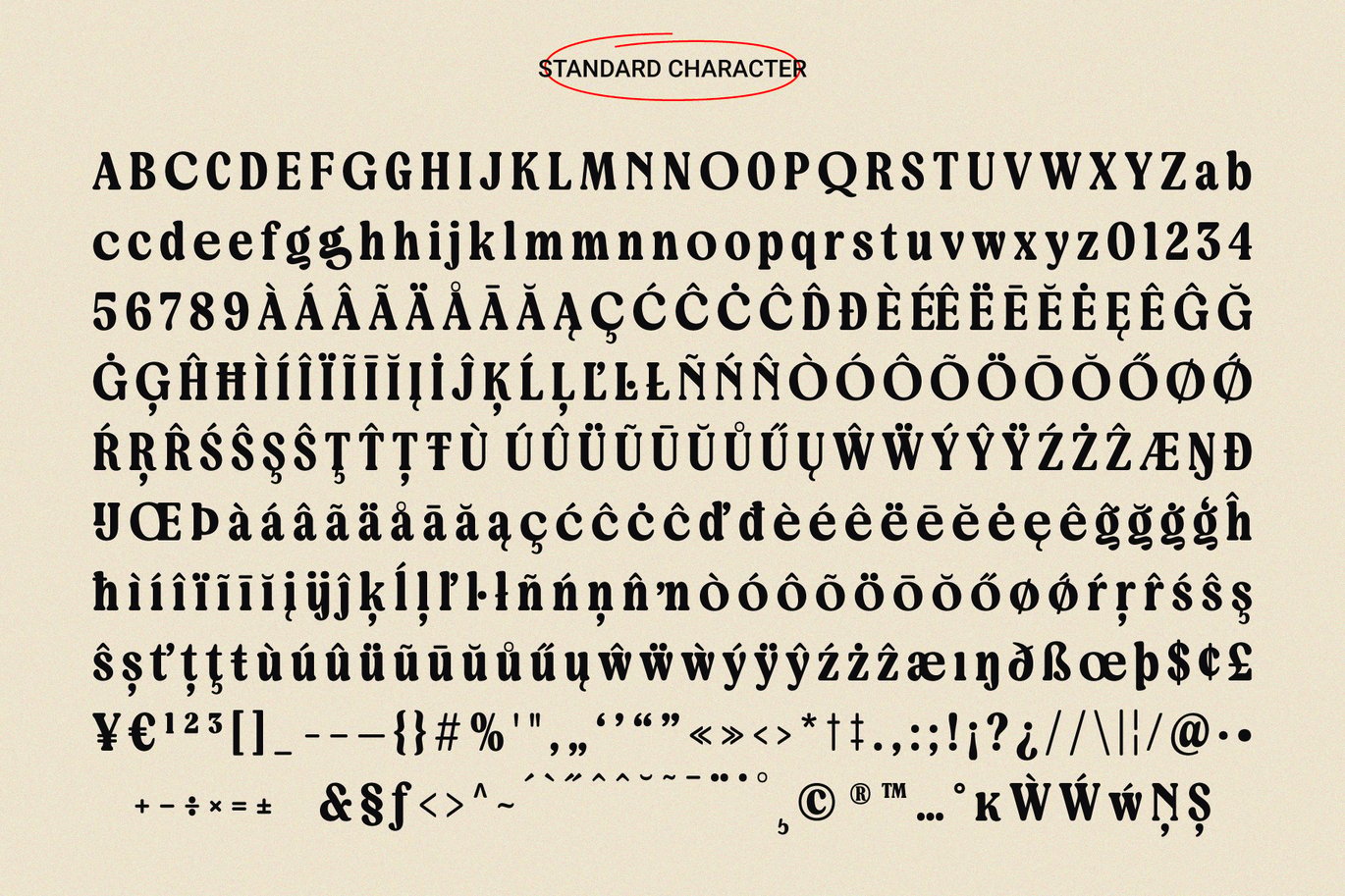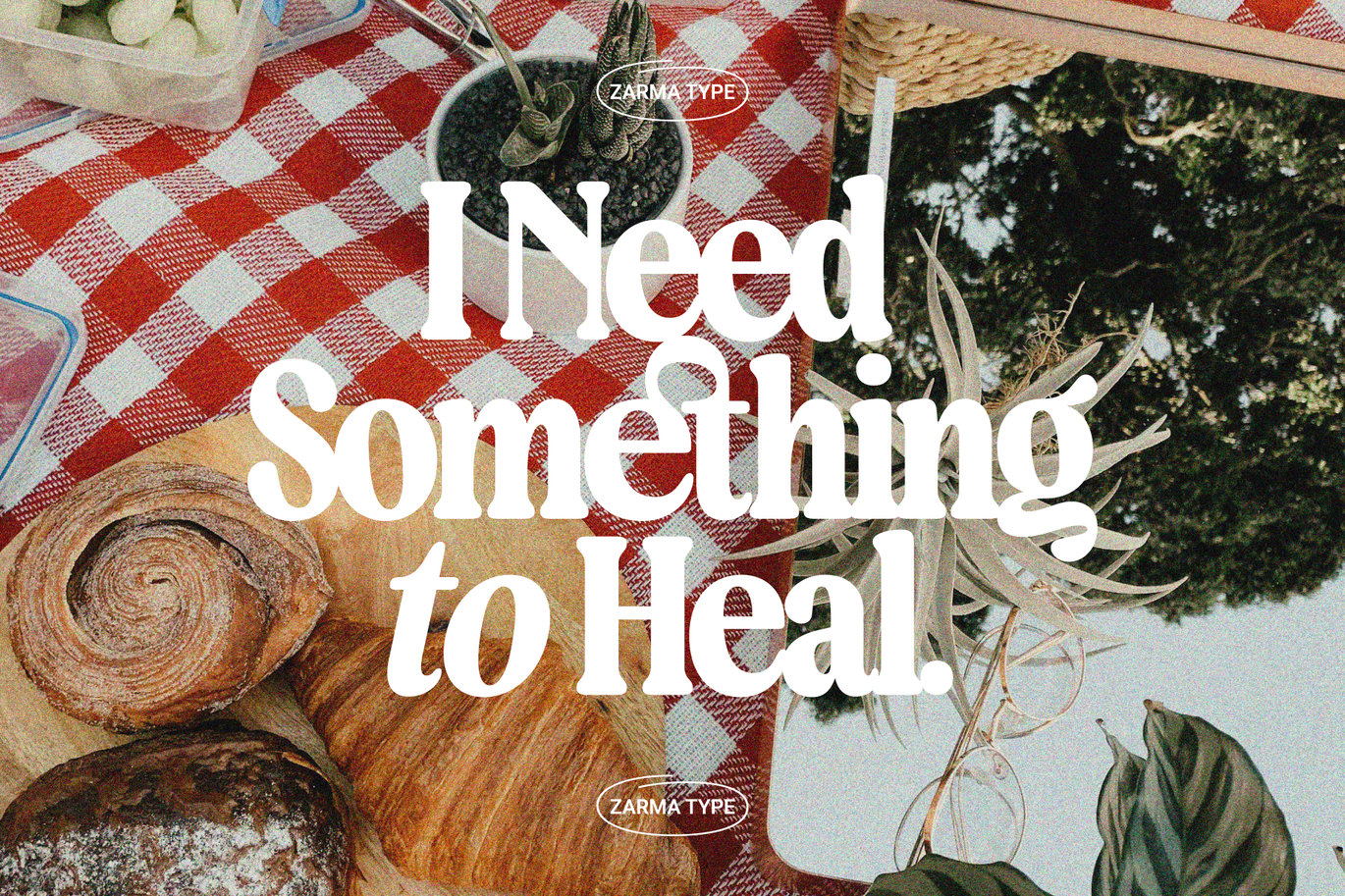
Bringbold Nineties – 90s Retro Bold Serif Font
Bringbold Nineties – 90s Retro Bold Serif Font is a versatile typeface ideal for various projects, including Serif, logos, branding, posters, blog headers, advertisements. The free version includes a full set of uppercase and lowercase letters, available in OTF format.